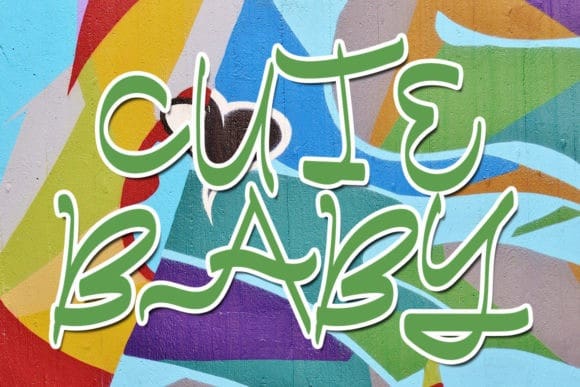
Green Force Font
Green Force Font is a graffiti-styled display font that has a street art vibe. This font is suitable for designs such as t-shirts, sportswear, logos, advertisements, clothing, and more.